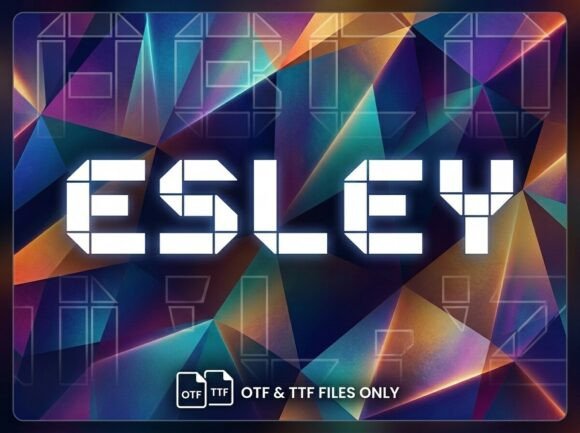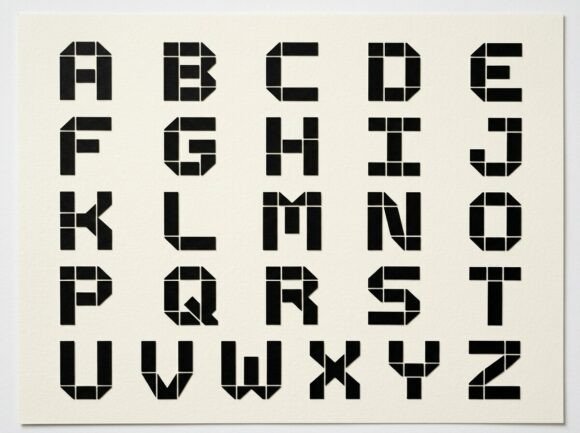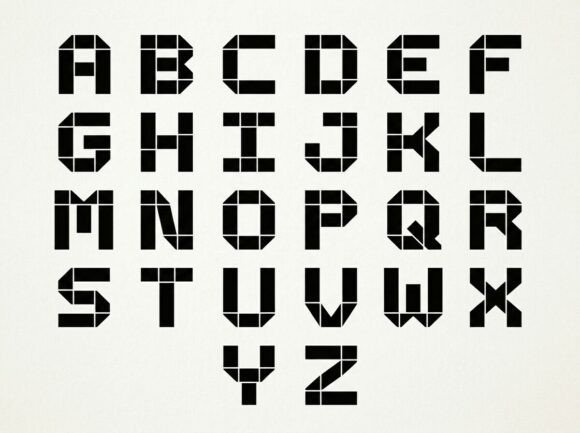
Introducing Esley Font: A Stunning Decorative Display Font
Are you tired of using the same old fonts for your creative projects? Look no further than Esley Font, a breathtaking decorative display font that’s sure to turn heads. Designed to be the center of attention, Esley Font boasts unique artistic elements and a strong visual personality that will elevate your designs to the next level.
What Makes Esley Font Special?
Esley Font is a versatile decorative font that’s perfect for creators who want to break away from the ordinary. Its stunning design makes it ideal for bold headlines, artistic logos, and creative packaging, while maintaining a professional and polished finish. Whether you’re a graphic designer, crafty DIY enthusiast, or entrepreneur looking to brand your business, Esley Font is the perfect choice.
⚠️ Before you purchase, please note that Esley Font is an ALL-CAPS (Uppercase Only) display typeface. This means that it does not include lowercase letters. It’s specifically designed for high-impact headlines, logos, and decorative initials where every letter is a work of art.
Use Cases: Where to Use Esley Font
Esley Font is perfect for a variety of creative projects, including:
- Headlines and Titles: Add a touch of elegance and sophistication to your headlines and titles with Esley Font’s unique artistic elements.
- Logos and Branding: Create a lasting impression with Esley Font’s strong visual personality, perfect for logos, business cards, and other branding materials.
- Packaging and Product Design: Stand out on store shelves with Esley Font’s decorative design, ideal for product packaging, labels, and more.
- Art and Craft Projects: Add a touch of personality to your art and craft projects, such as handmade cards, invitations, and scrapbooking.
Tips for Using Esley Font
To get the most out of Esley Font, here are a few tips:
- Use it sparingly: Esley Font is designed to make a statement, so use it sparingly to add emphasis to your designs.
- Experiment with colors and textures: Esley Font looks great with bold colors and textures, so don’t be afraid to get creative!
- Pair it with a simple font: Balance out Esley Font’s decorative design with a simple font for body text or other design elements.